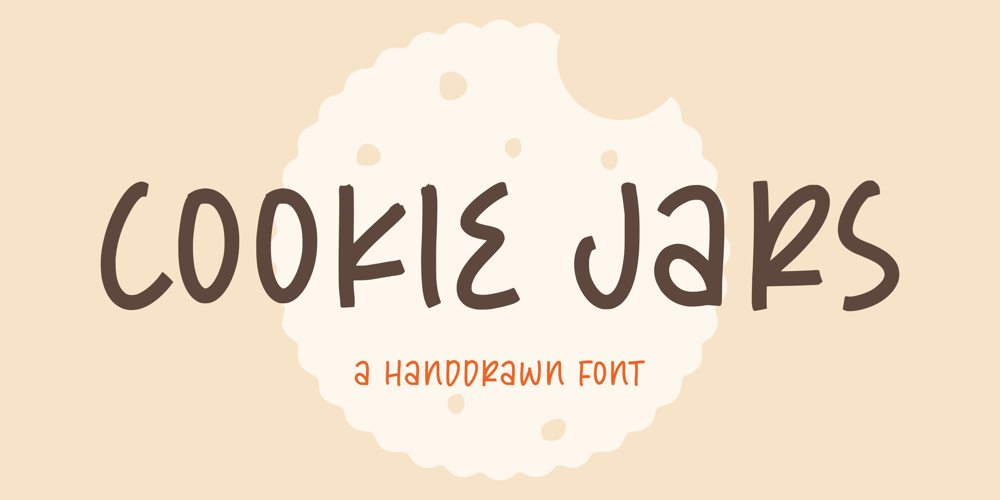
Cookie Jars Font Family was designed by Restu Angga and published by Balpirick. Cookie Jars contains 1 styles and family package options. Cookie Jars is a Handdrawn Font.Whether you’re using it for crafts, digital design, presentations, or making greeting cards, this font has the potential to become your favorite go-to font, no matter the occasion!This font only has allcaps letters.also multilingual supportEnjoy the font! Feel free to comment or feedback!Thank you!